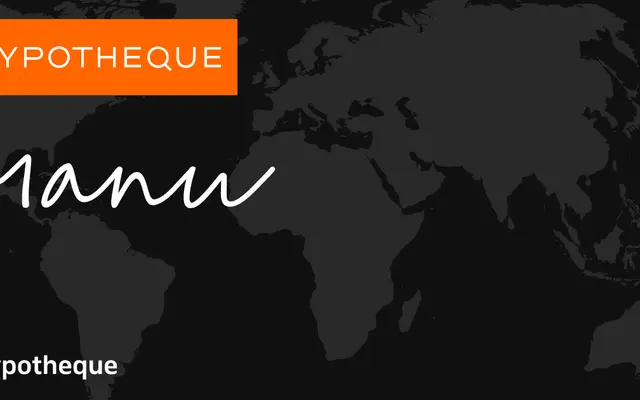
A handwriting typeface from Typotheque offered across two stylistic registers, Formal and Informal, spanning seven weights from Hairline to Bold with a dedicated Symbol set and variable font.
Manu divides into Formal and Informal subfamilies, each running from Hairline through Bold, giving designers control over the degree of structure within a handwritten aesthetic. An Emphasis style and a Symbol set round out the family, and a variable font version is available for fluid weight transitions. Shown in use on printed leaflets and editorial material, it suits projects that need a human, gestural quality without sacrificing weight range.
Manu is a handwriting typeface offered in Formal and Informal subfamilies across multiple weights, with an Emphasis style and a Symbol set, placing it firmly in the script/handwriting category.